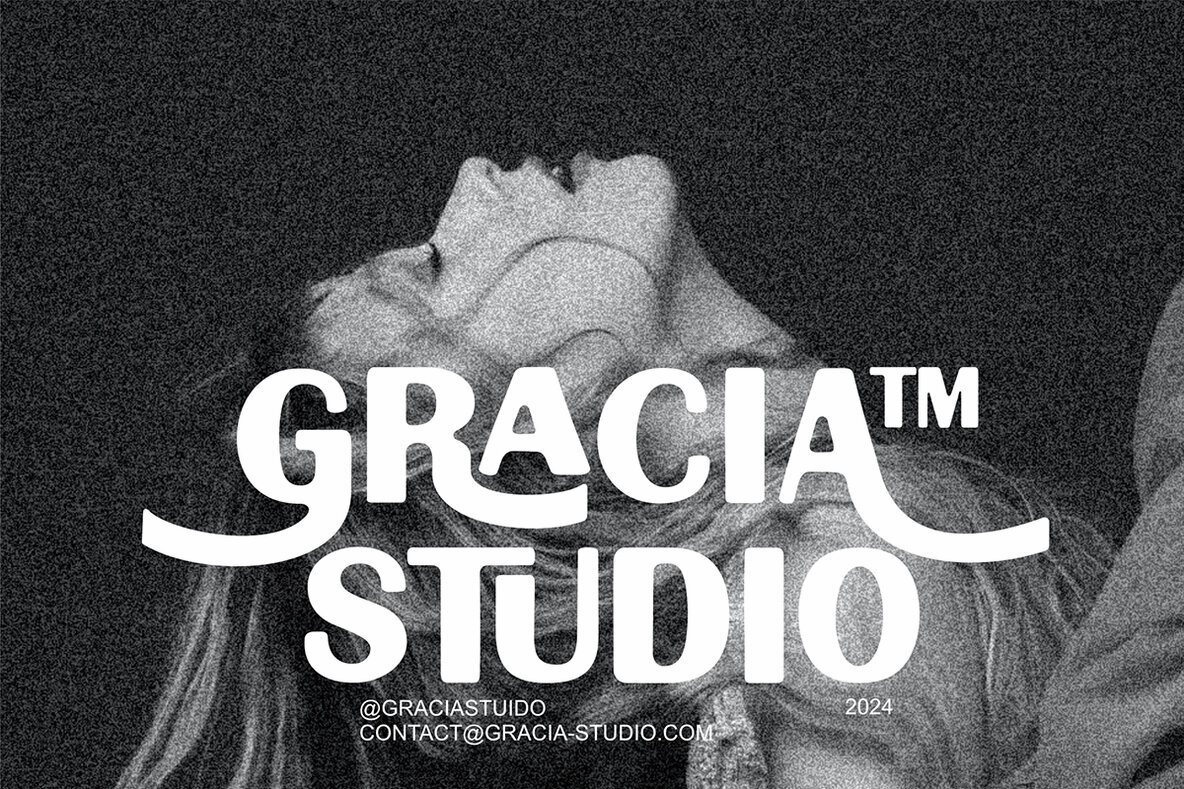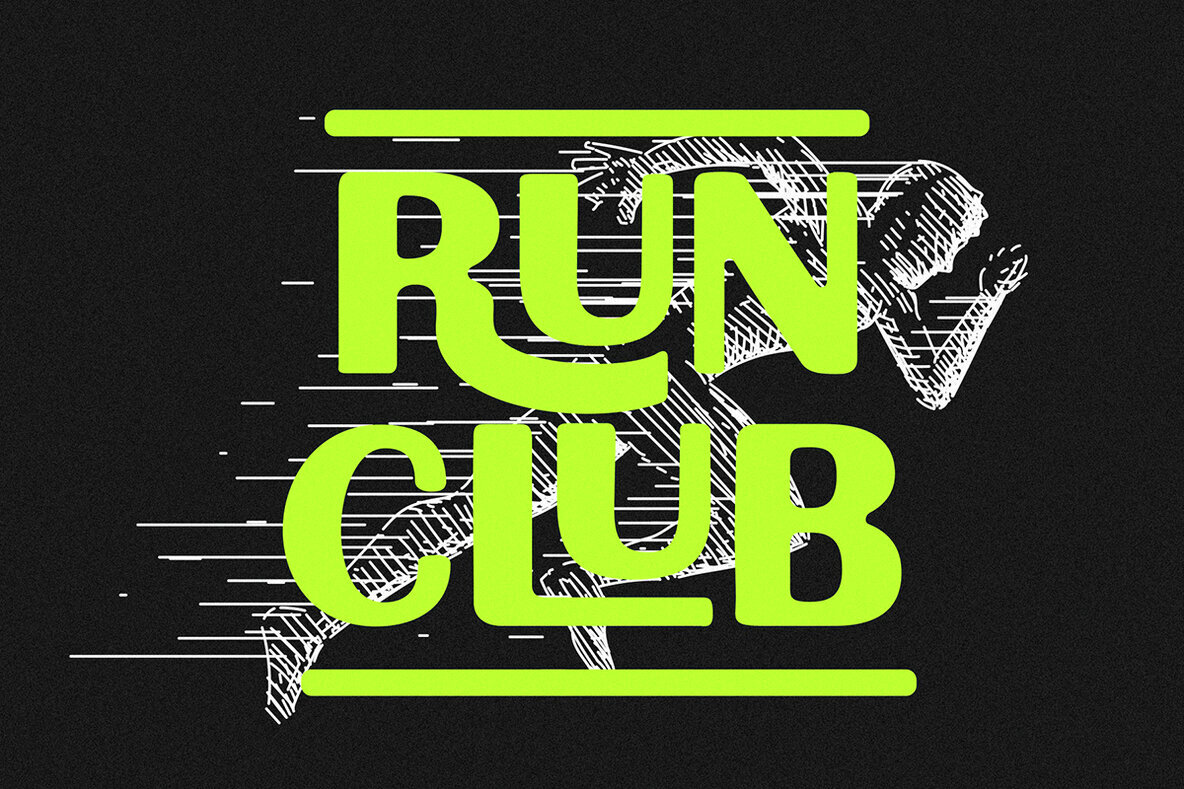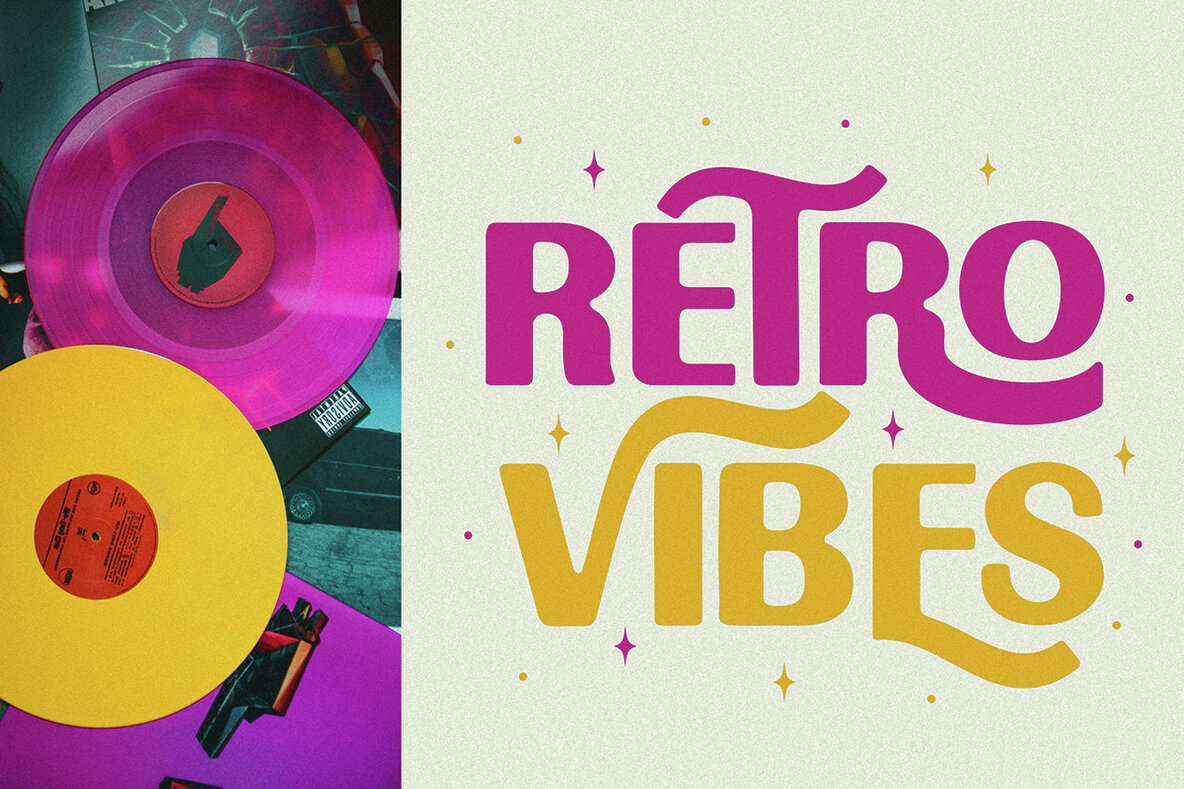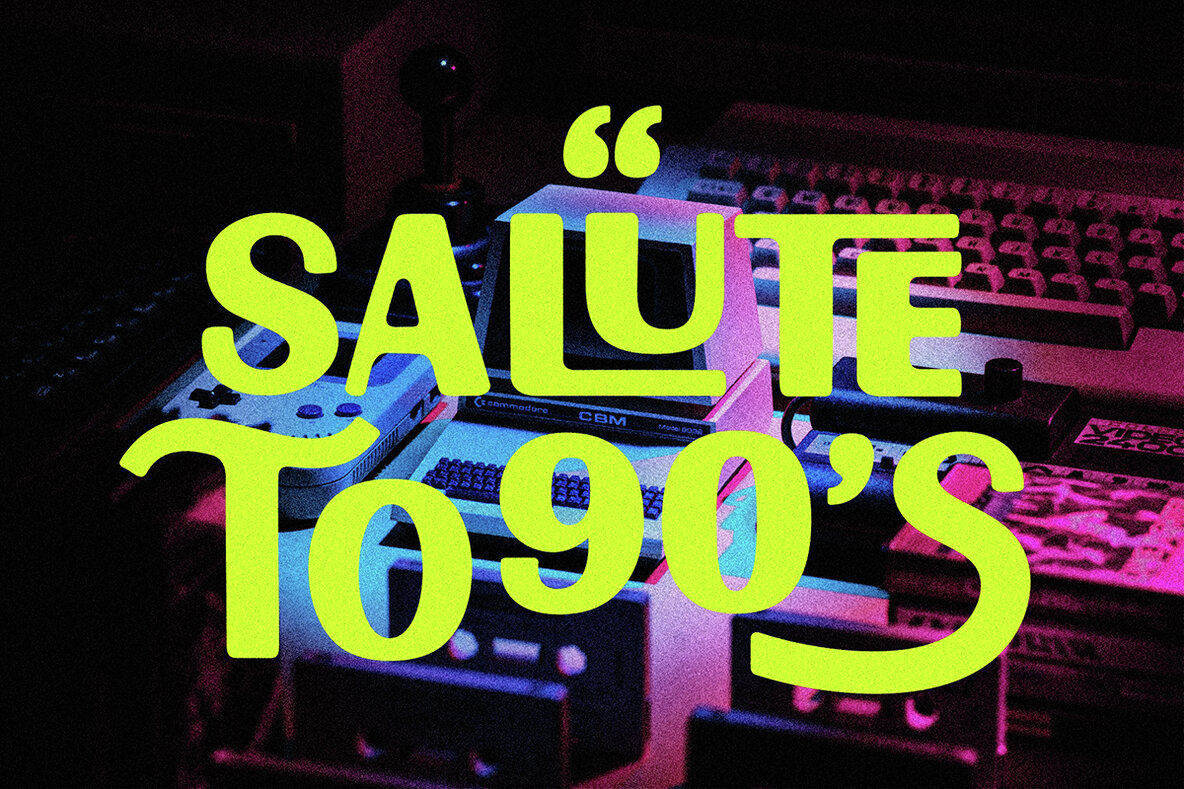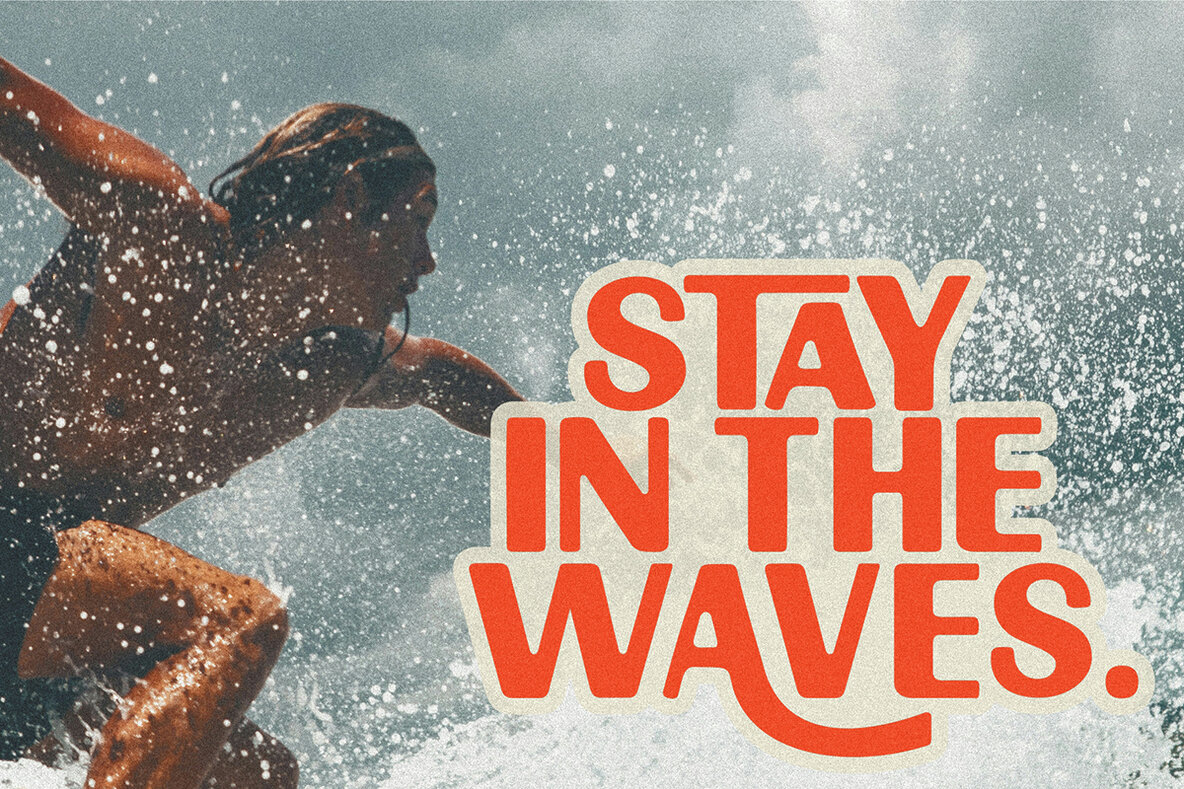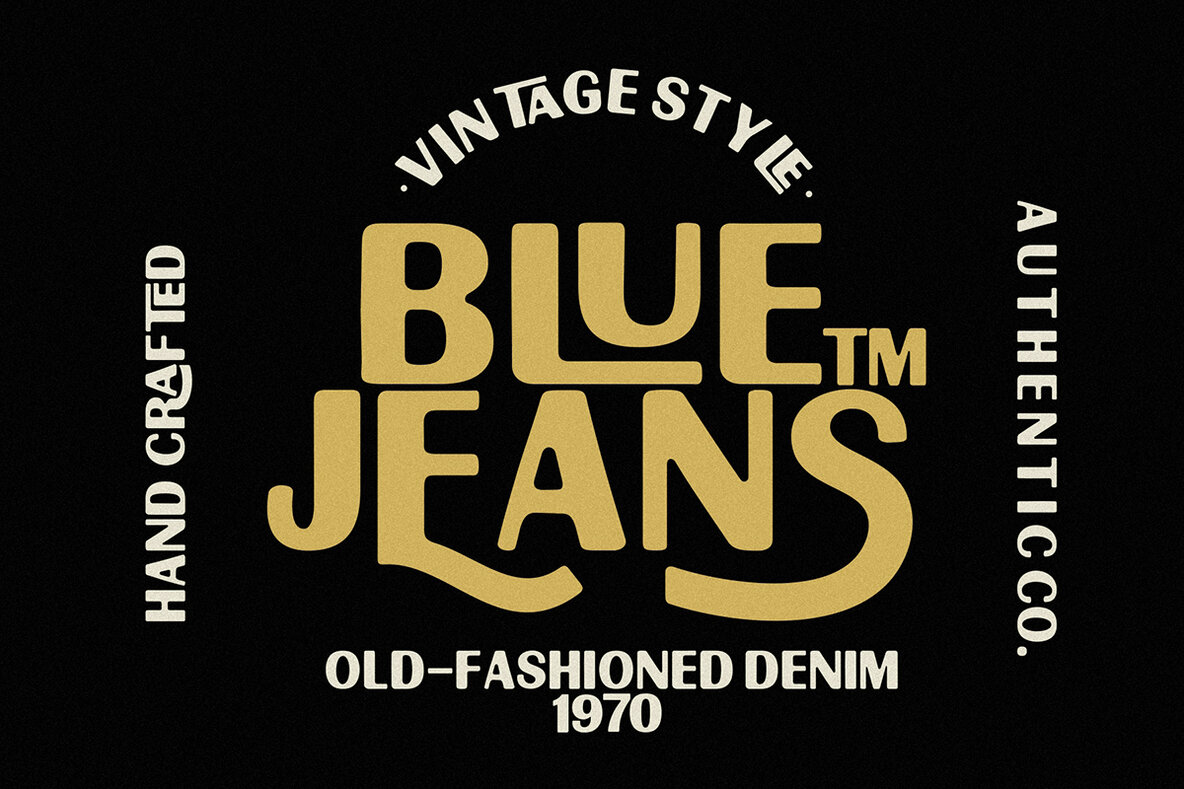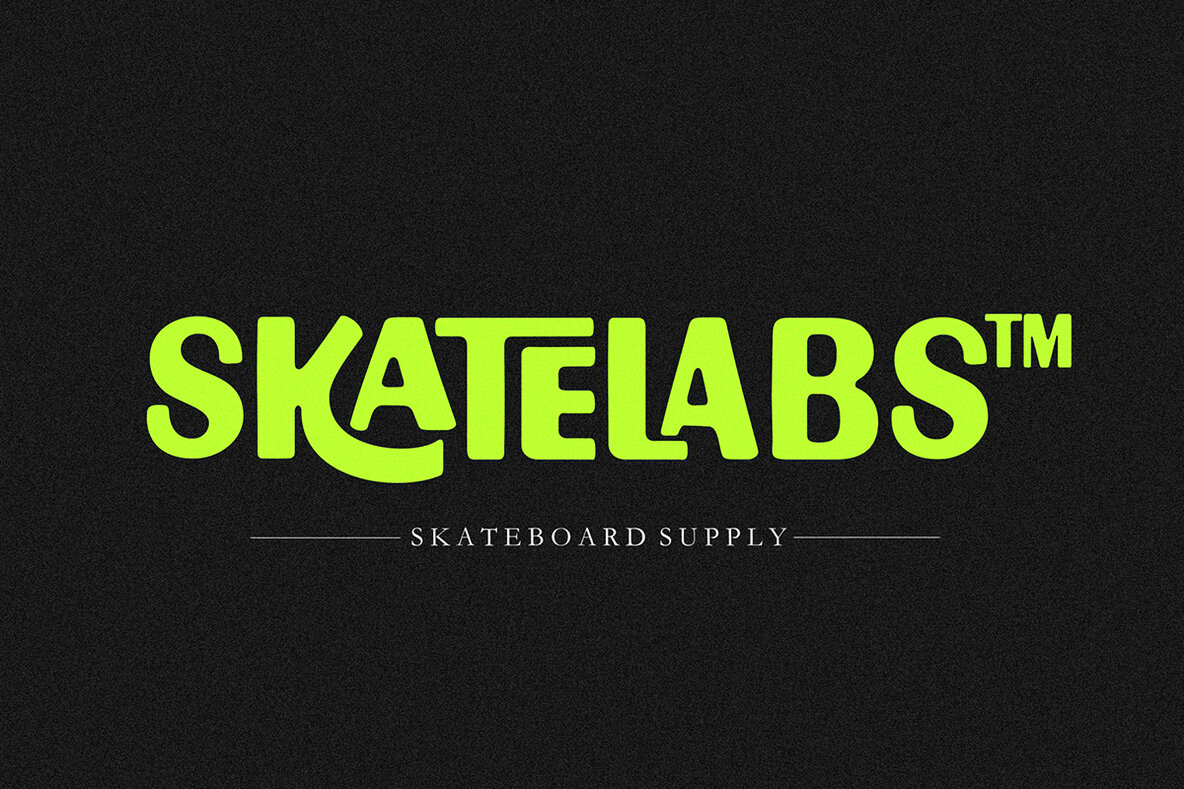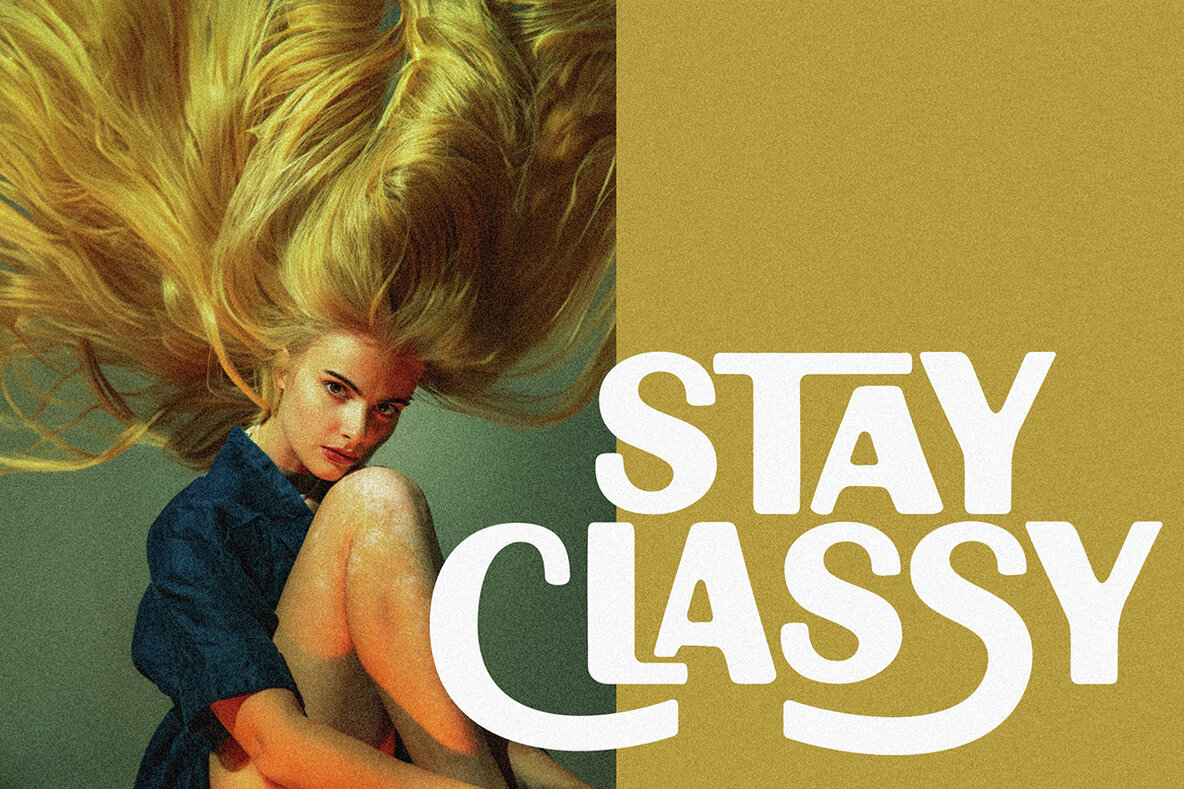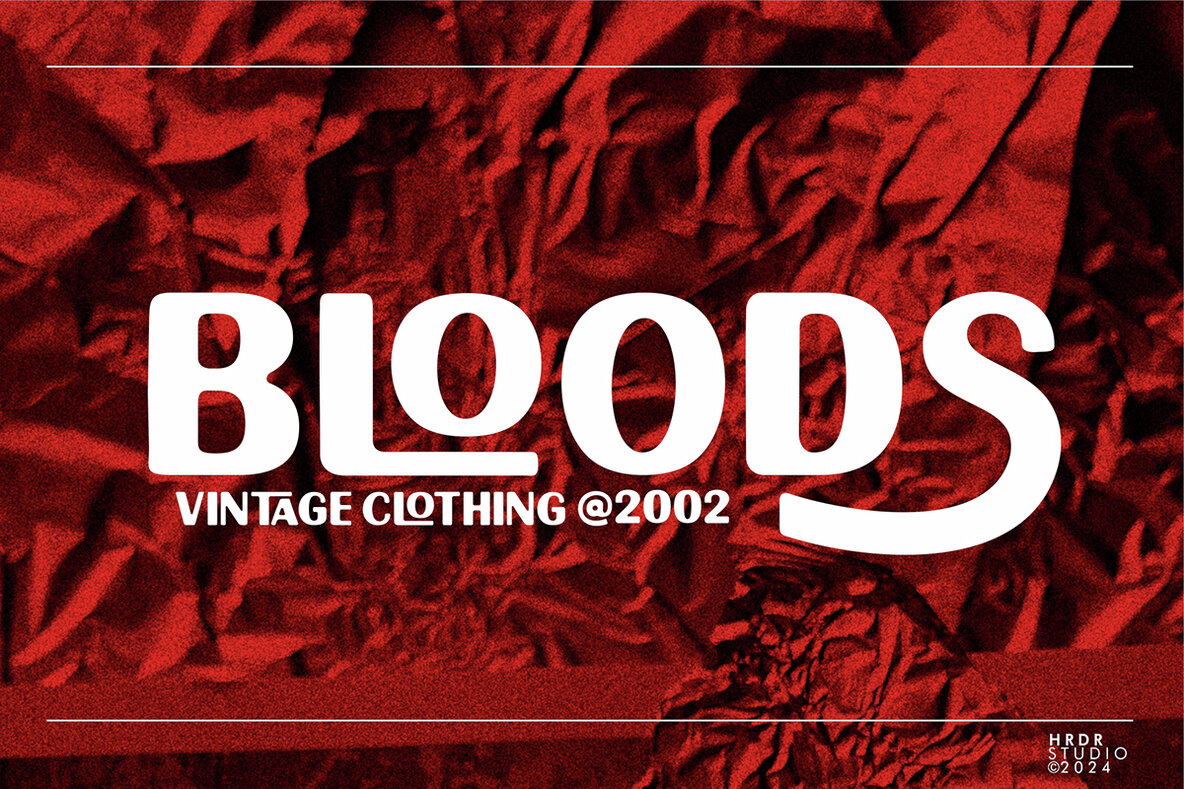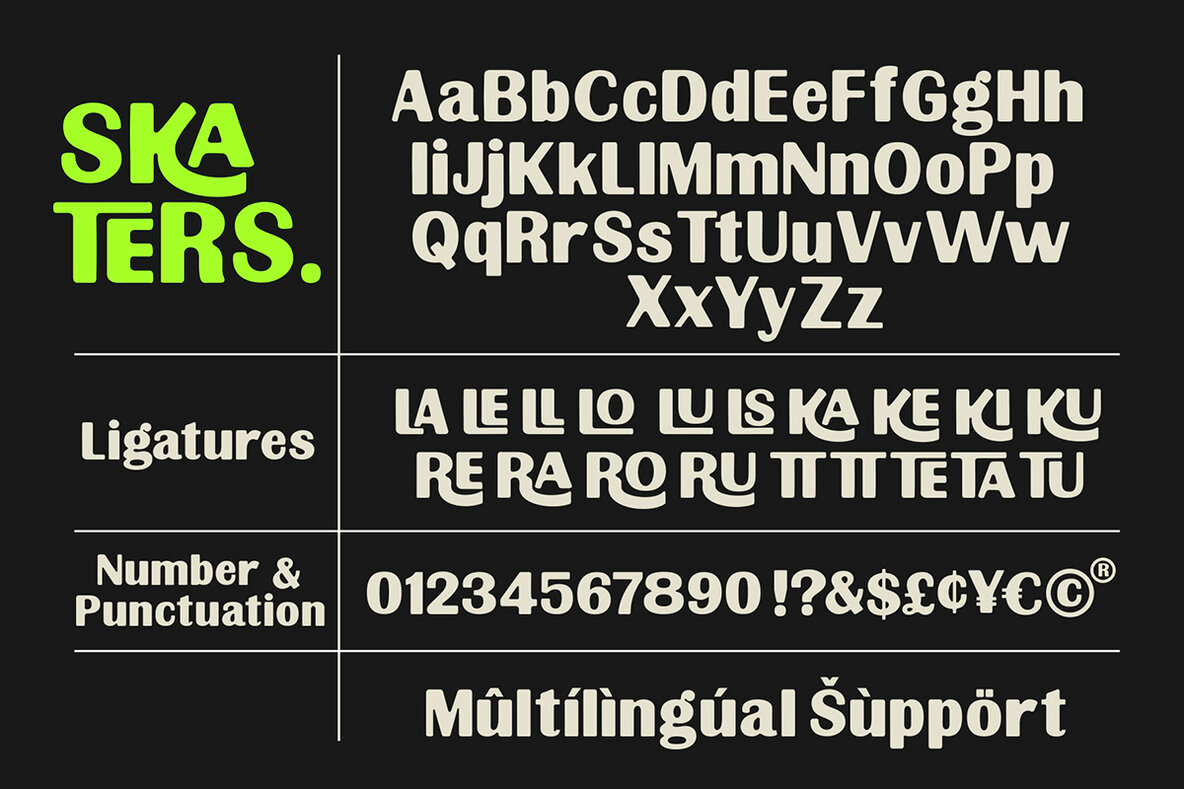
Skaters Font
SKATERS
Skaters is a retro sans serif font characterized by thick, rounded edges, perfect for capturing a nostalgic aesthetic. The font's unique ligatures and alternate characters offer a distinctive twist, making it an excellent choice for vintage and retro-themed projects. Use it for eye-catching posters, fashion branding, magazine layouts, and packaging designs in the food and beverage industry. Its versatility also makes it an ideal option for stylish text overlays on various background images.
Font features include a complete set of uppercase and lowercase characters, numeric and multilingual support, as well as ligatures and stylistic alternates (Ss01, Ss02, Ss03). Skaters effectively bridges the gap between classic charm and contemporary appeal, ensuring any project stands out with a touch of retro flair. Whether you're designing for print or digital platforms, this font brings a playful and timeless quality to your work.